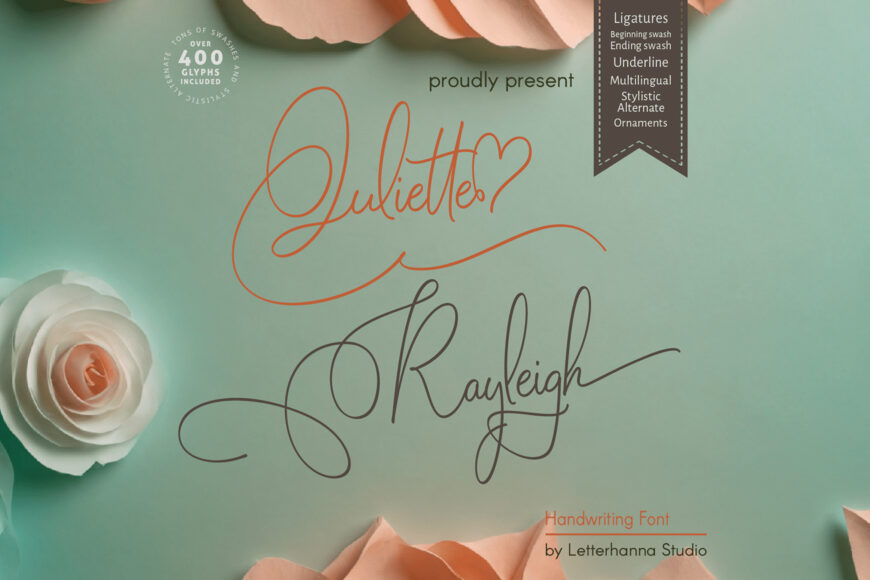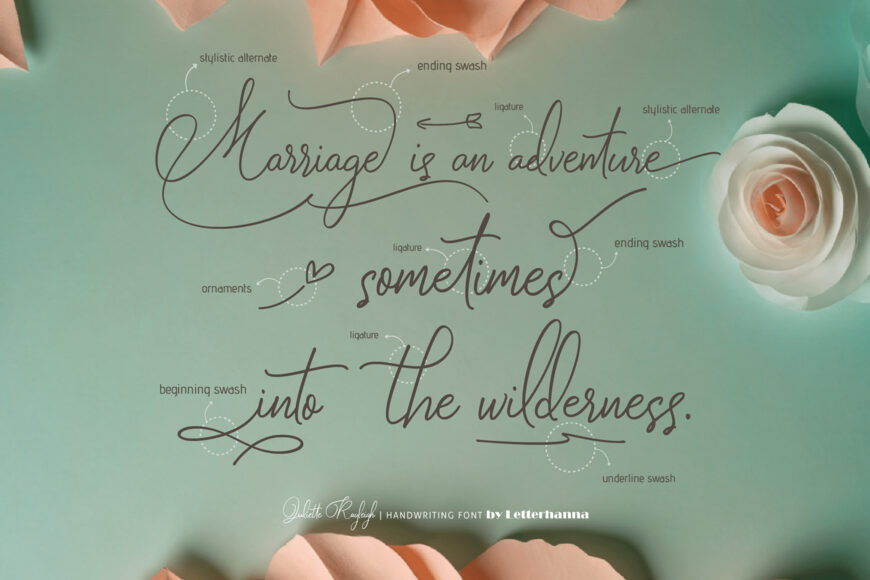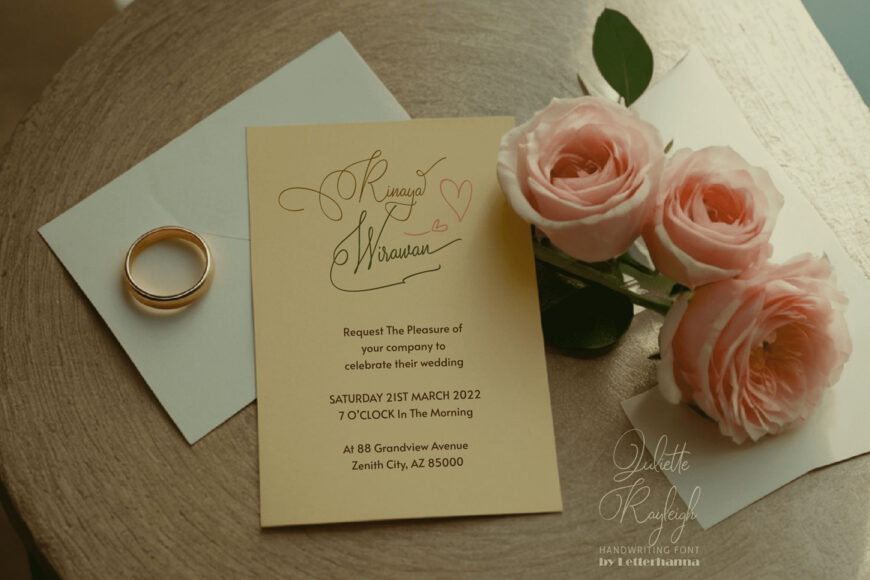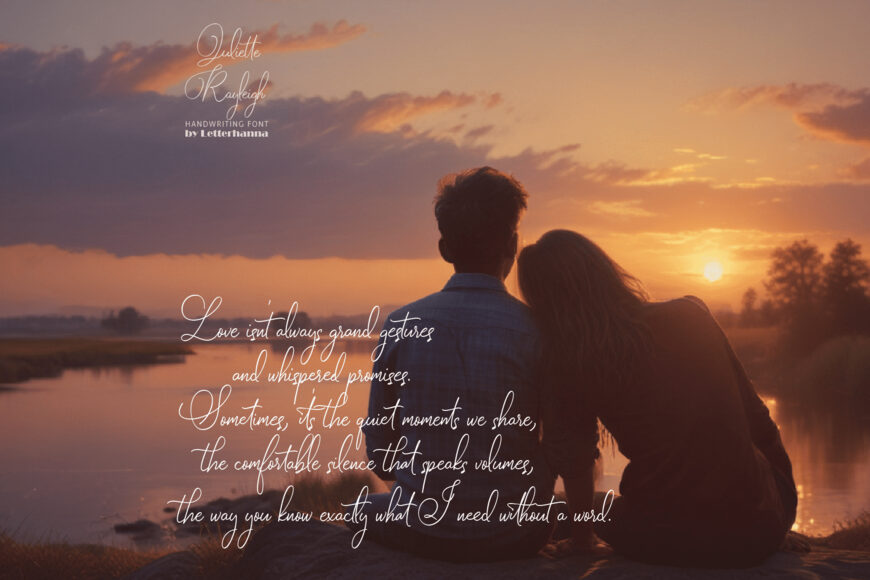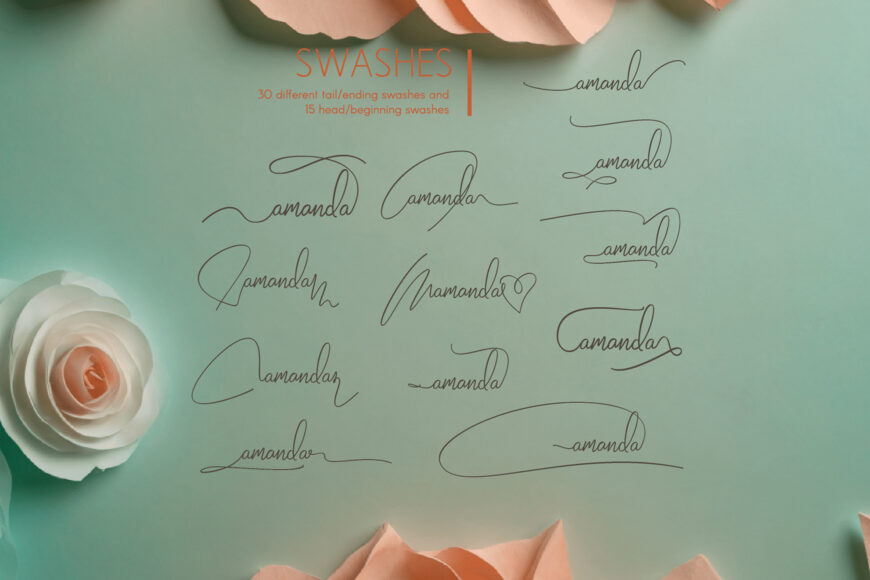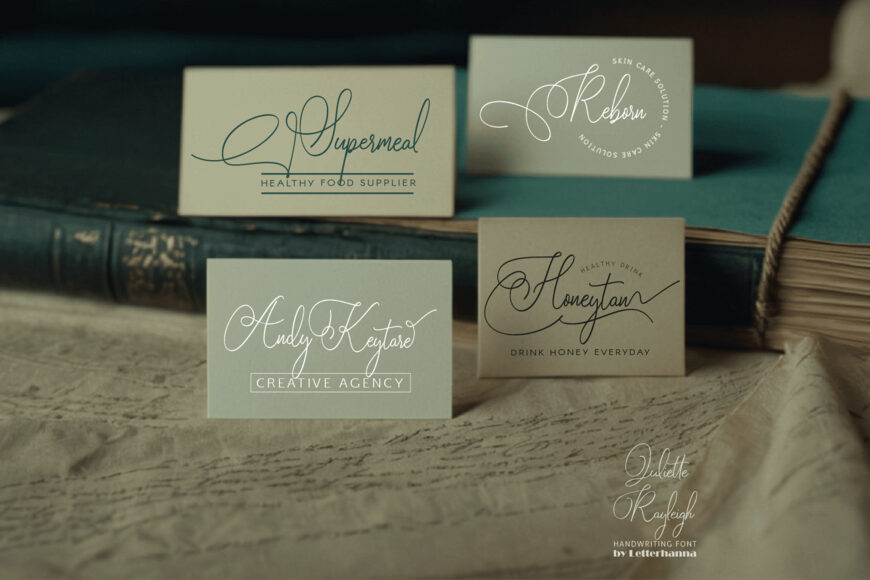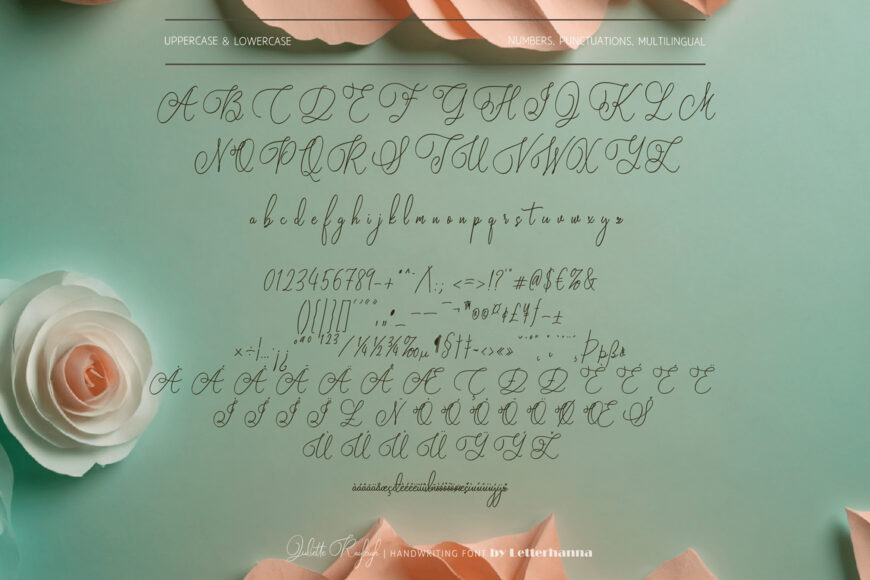
Introducing Juliette Rayleigh, a new typeface that embodies timeless elegance and classic charm. Juliette Rayleigh is more than just a font; it’s a calligraphic invitation to a world of sophistication. Designed with the modern writer in mind, this script boasts a beautiful balance of classic letterforms and a touch of contemporary flair.